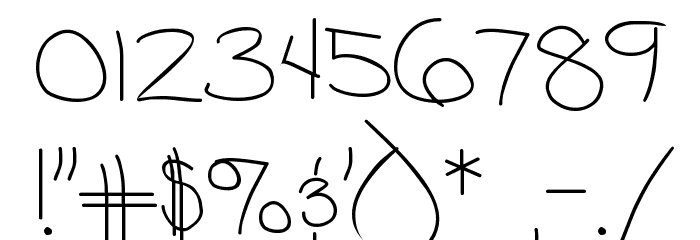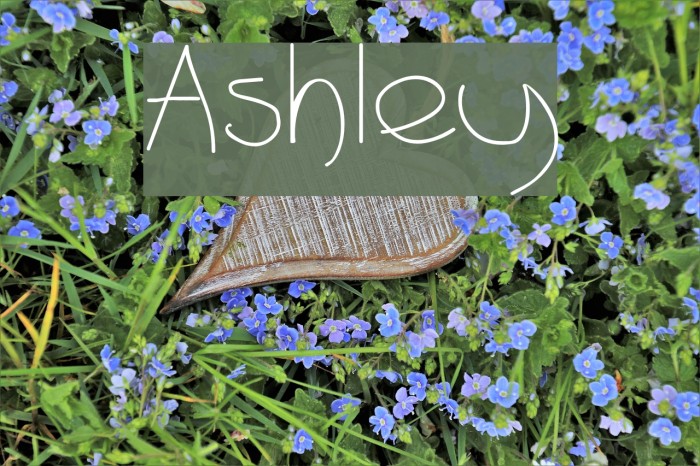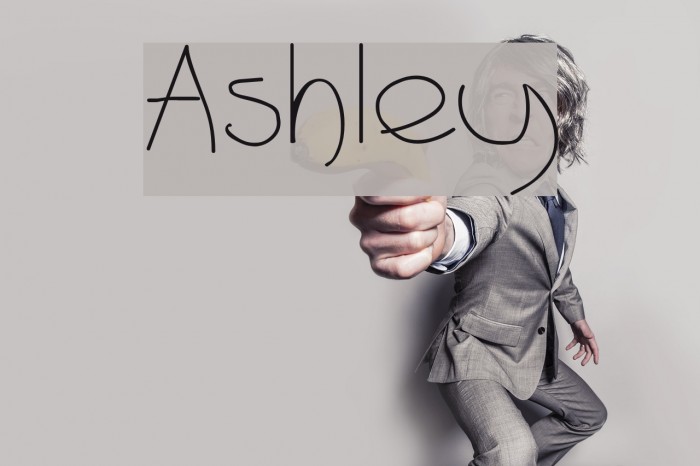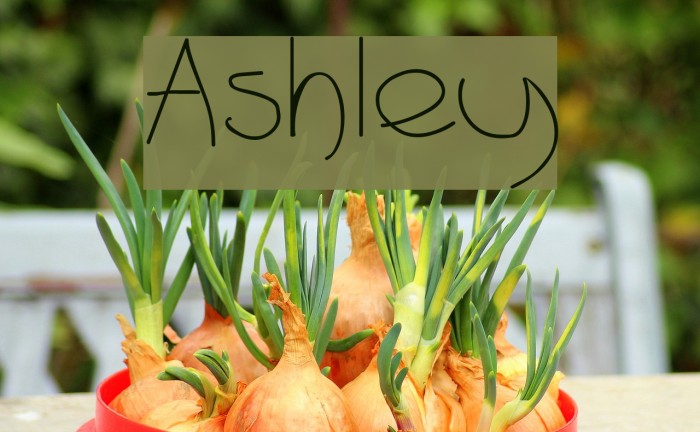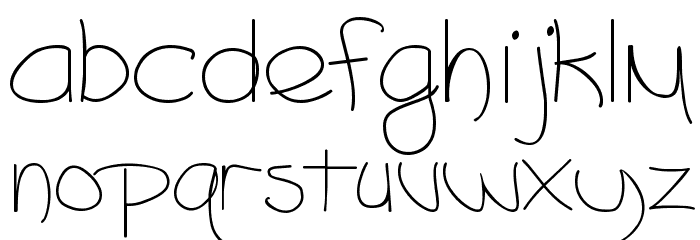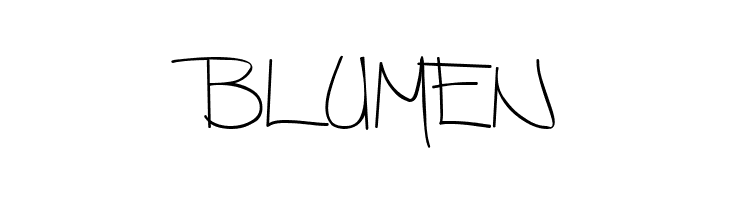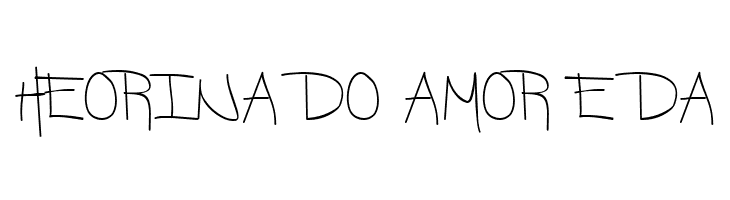
Ashley Font
This font features a playful and whimsical handwritten style, characterized by its irregular strokes and casual appearance. The letters have a slightly uneven baseline, adding to the informal and friendly feel. The uppercase and lowercase letters maintain a consistent style, with rounded edges and a flowing, cursive-like quality. The numerals and special characters follow the same playful design, making the font suitable for creative and informal applications. Its unique style makes it stand out, perfect for projects that require a personal touch.
A playful, handwritten font with a whimsical and casual style.
• Proposed Projects: Ideal for greeting cards, children's books, playful branding, and creative invitations.
• Category: Handwritten
• Overall Style: Playful
• Use Case: Logos, Invitations, Greeting Cards